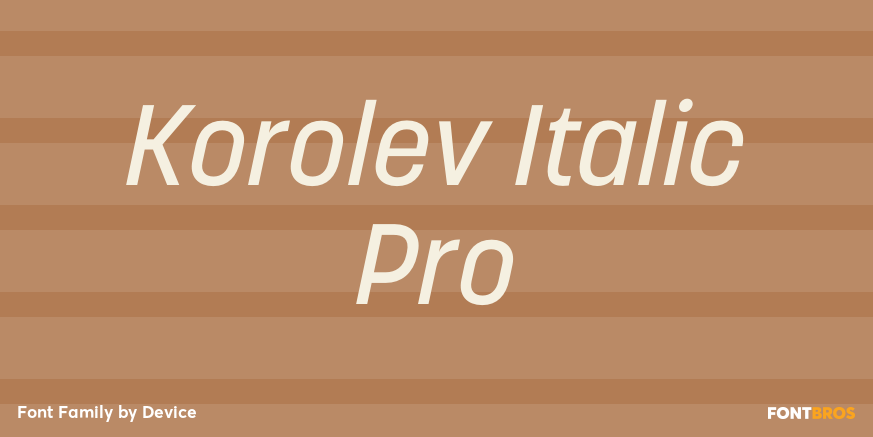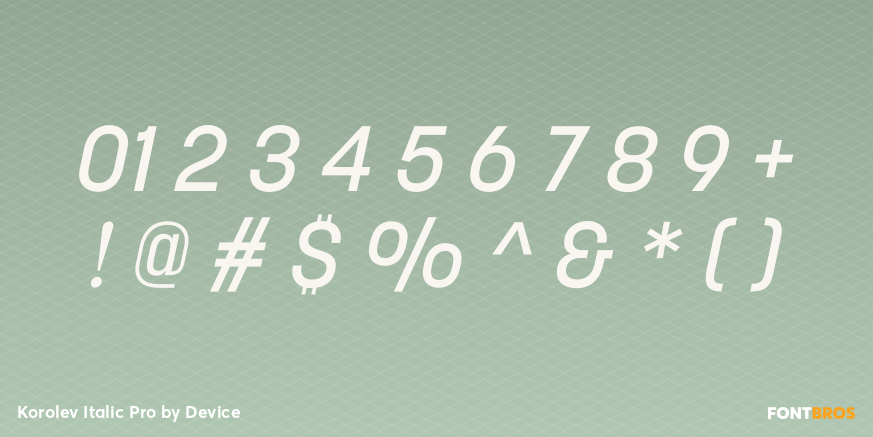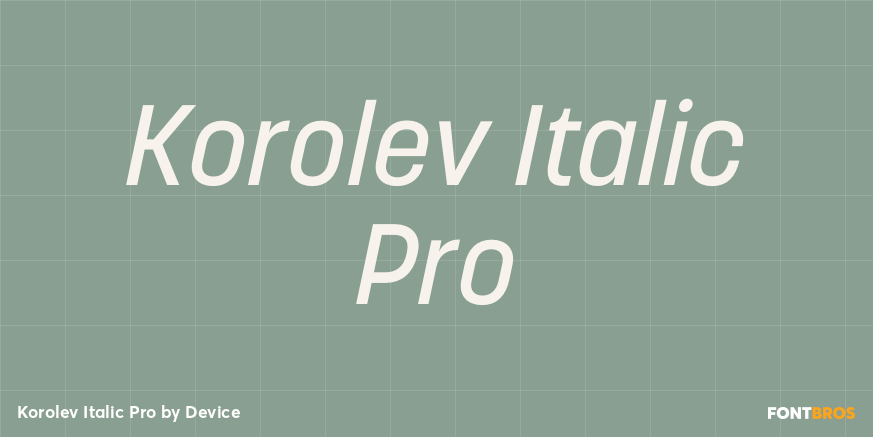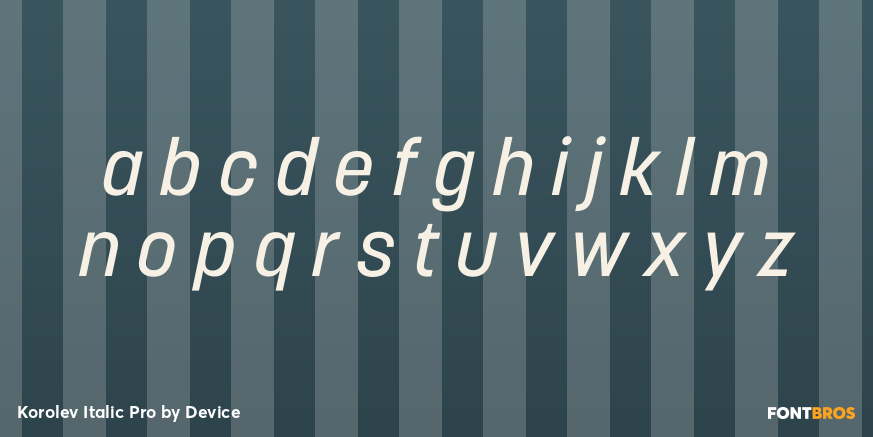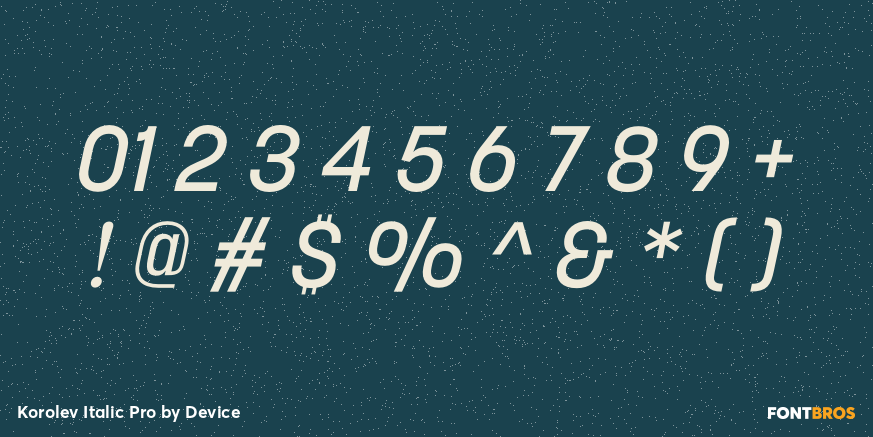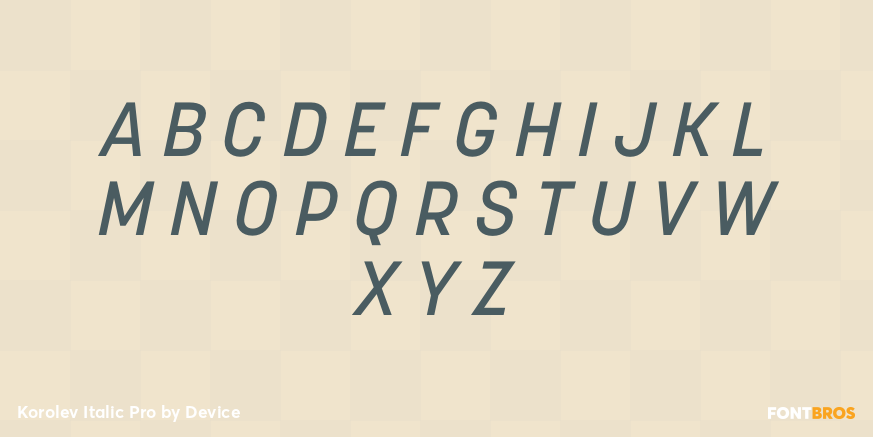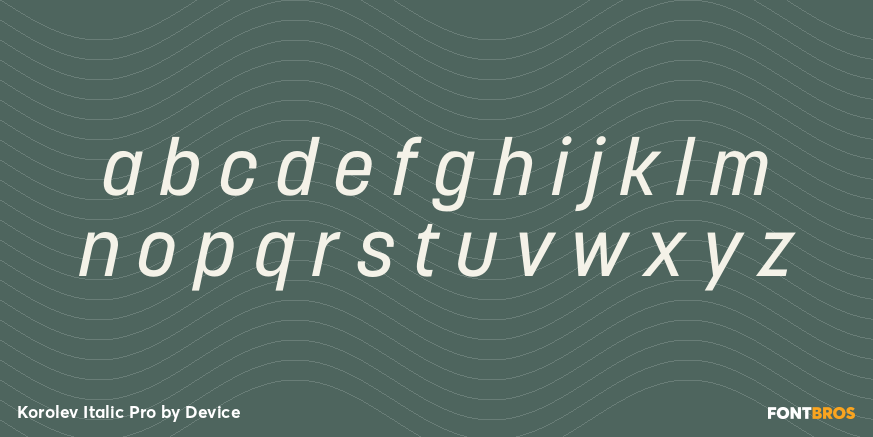
Korolev Italic Pro
DF Korolev is a 20 weight sans serif family based on lettering by an anonymous Soviet graphic designer from the propaganda displays at the Communist Red Square parade in 1937. It has been named in honor of Sergey Pavlovich Korolyov, or Korolev, considered by many to be the father of practical astronomics.
Tracings done in Illustrator over a photograph featuring this type pinned down some of the basic character shapes. These were then imported into FontLab, where the full glyph complement was developed. The lower-case has been designed from scratch, and adheres to the structural logic of the uppercase as closely as possible. The complete Korolev super-family includes standard, italic, condensed, and compressed versions, each in five weights.